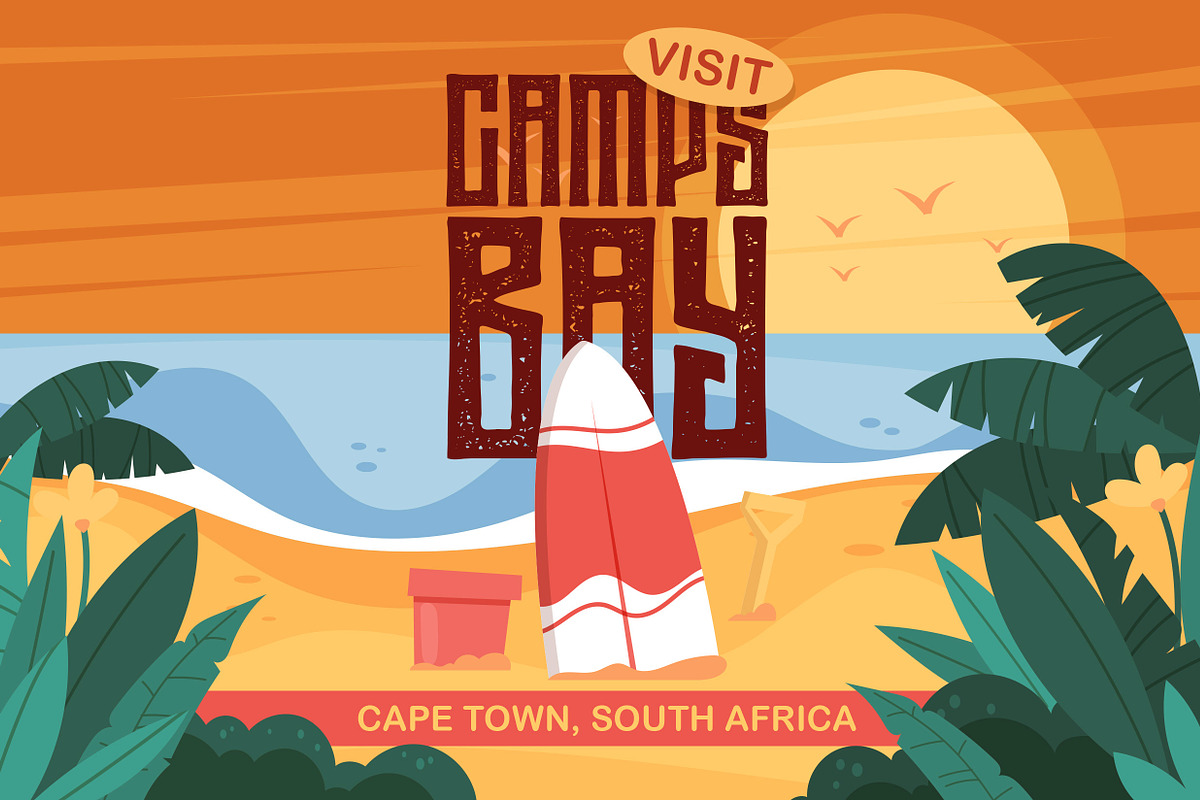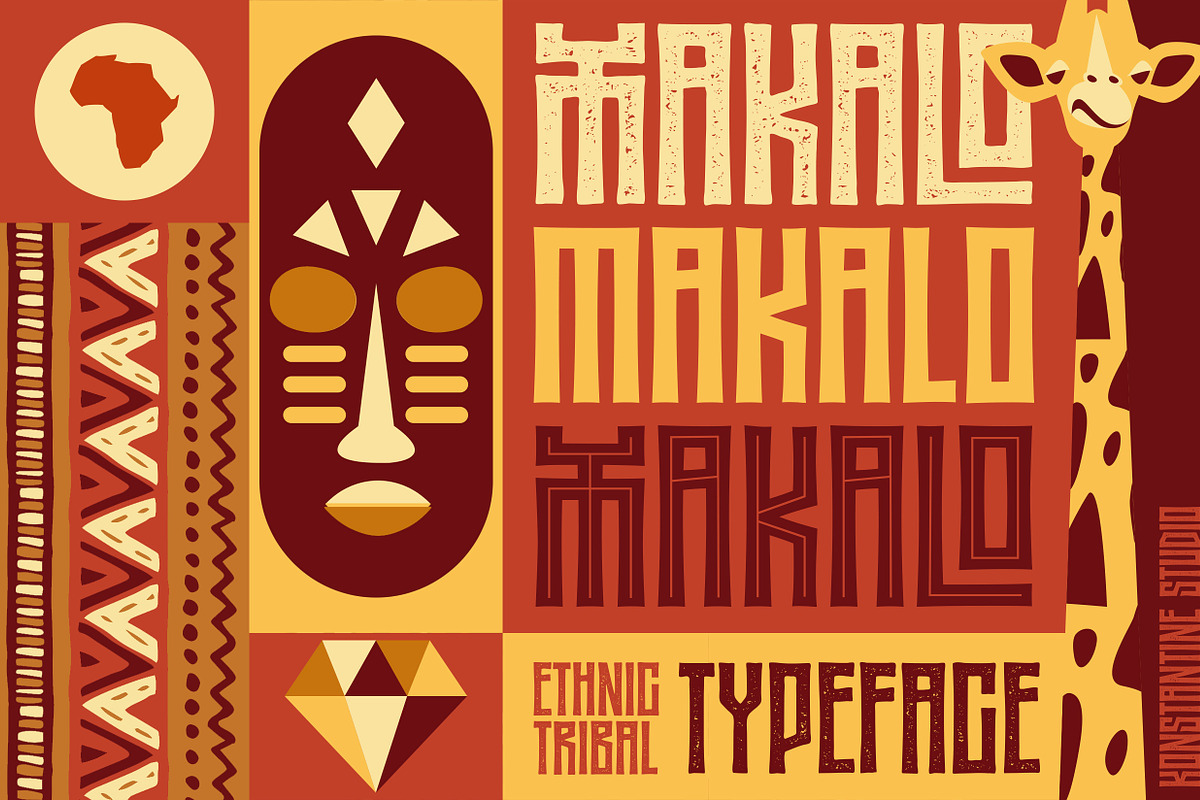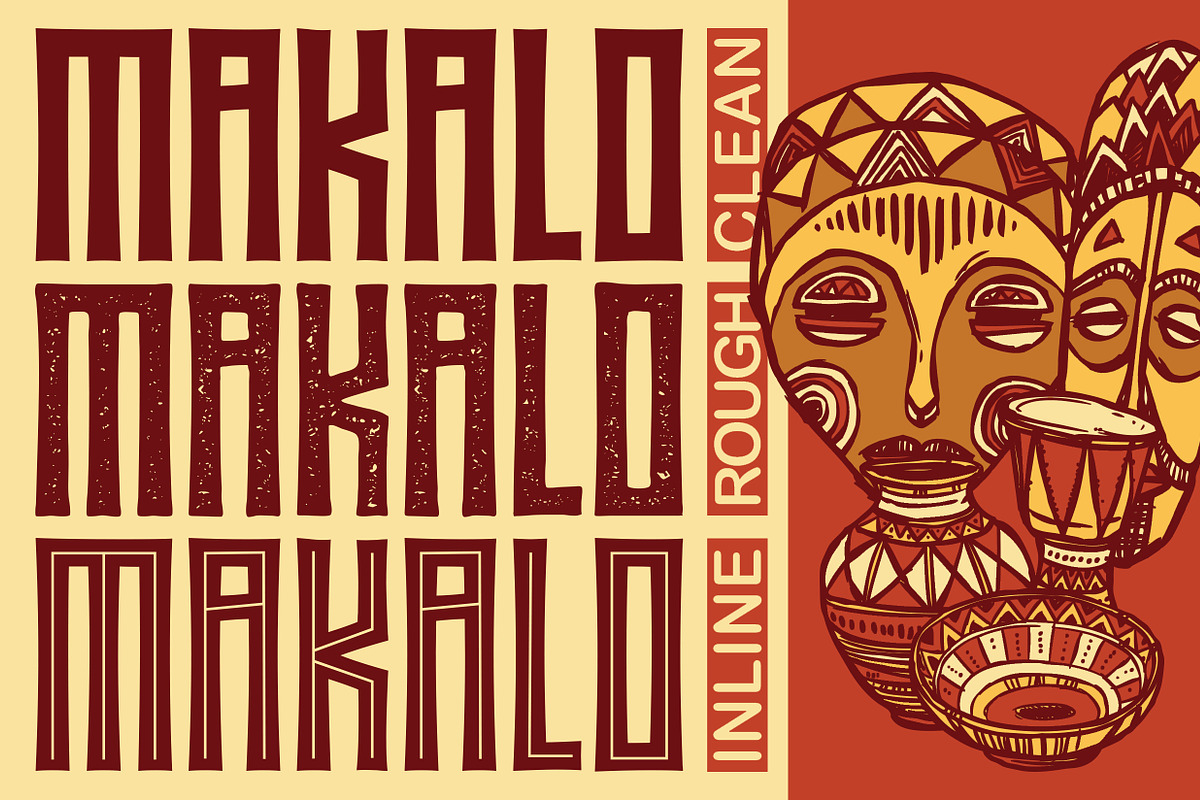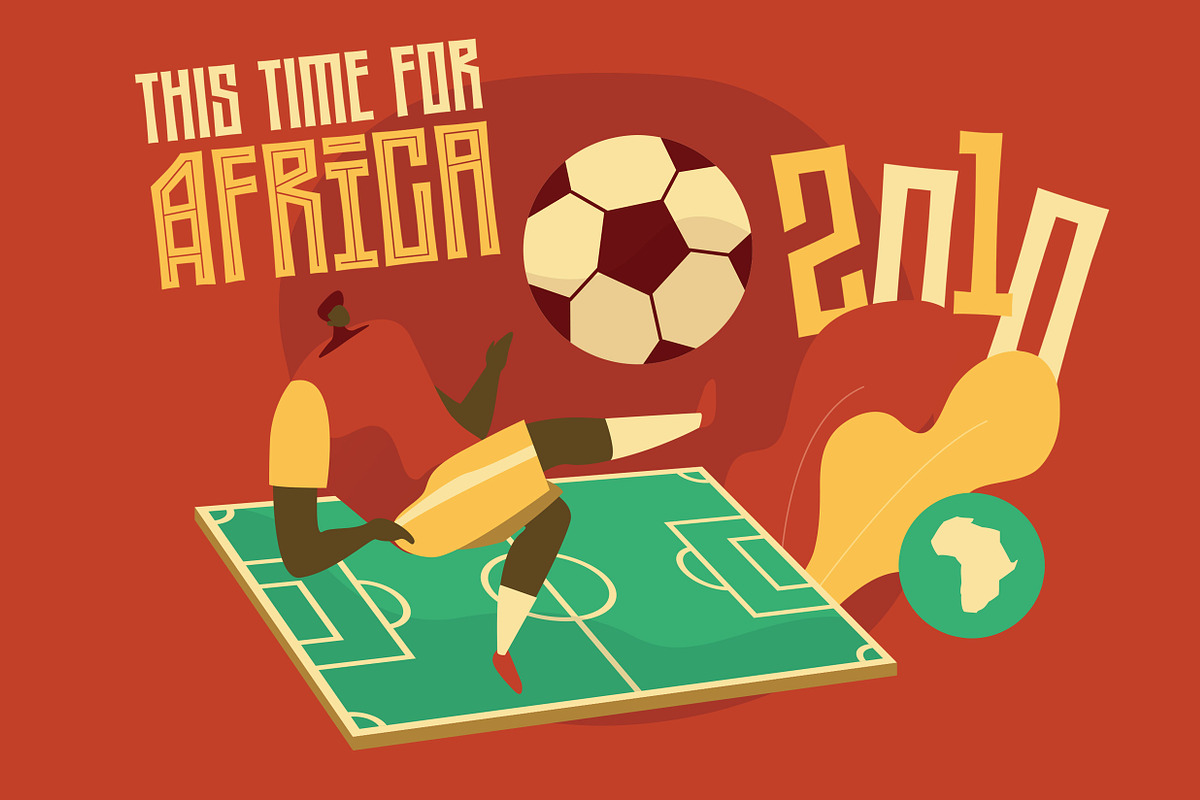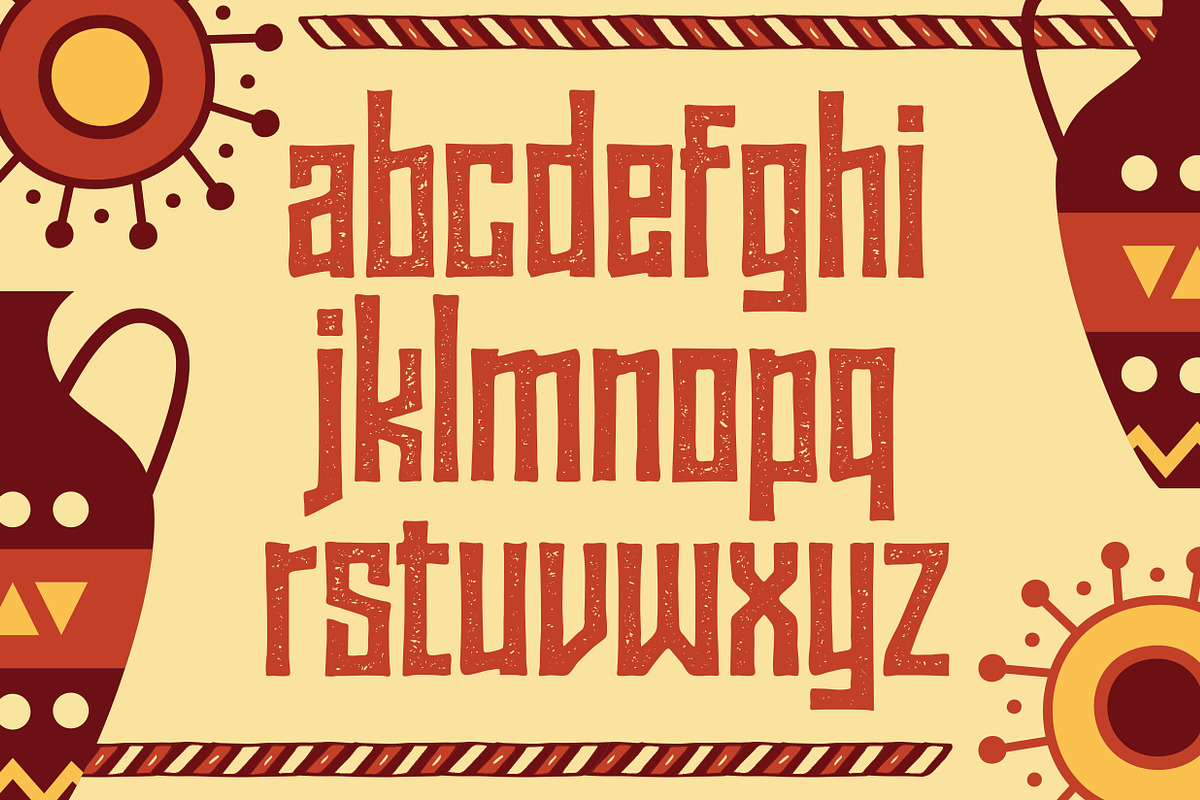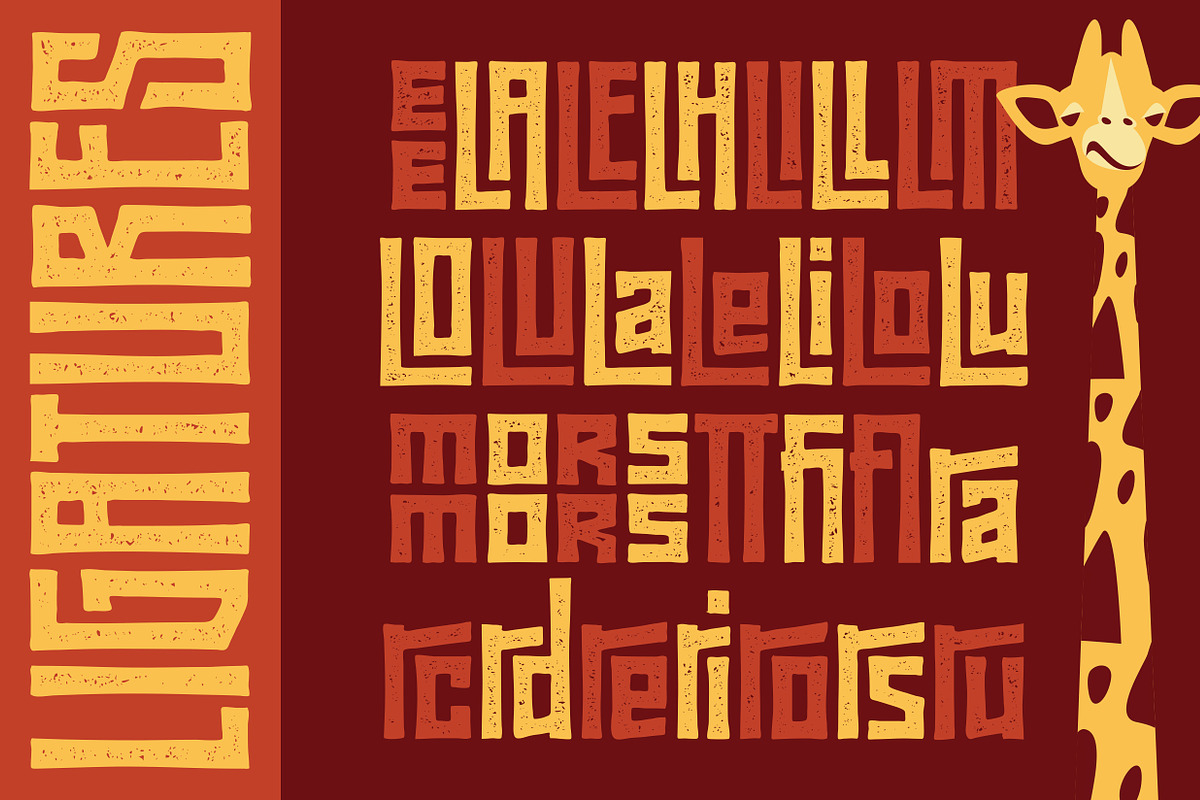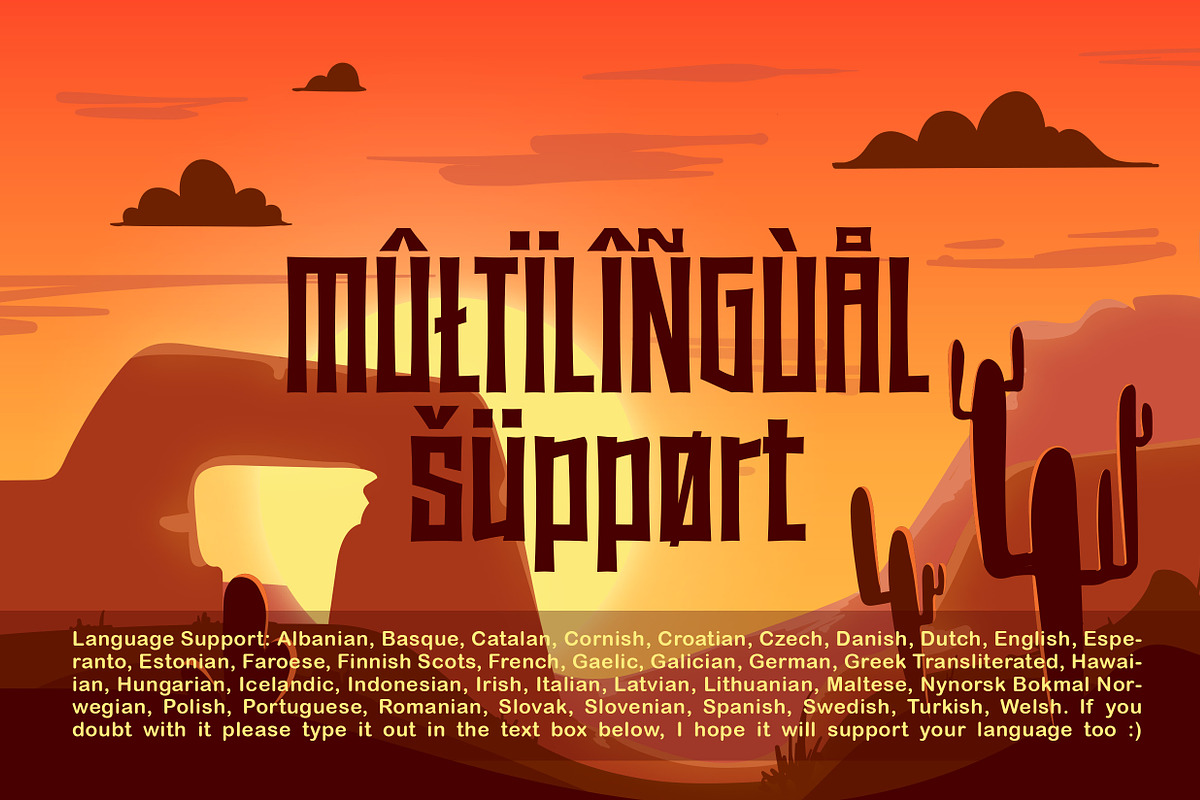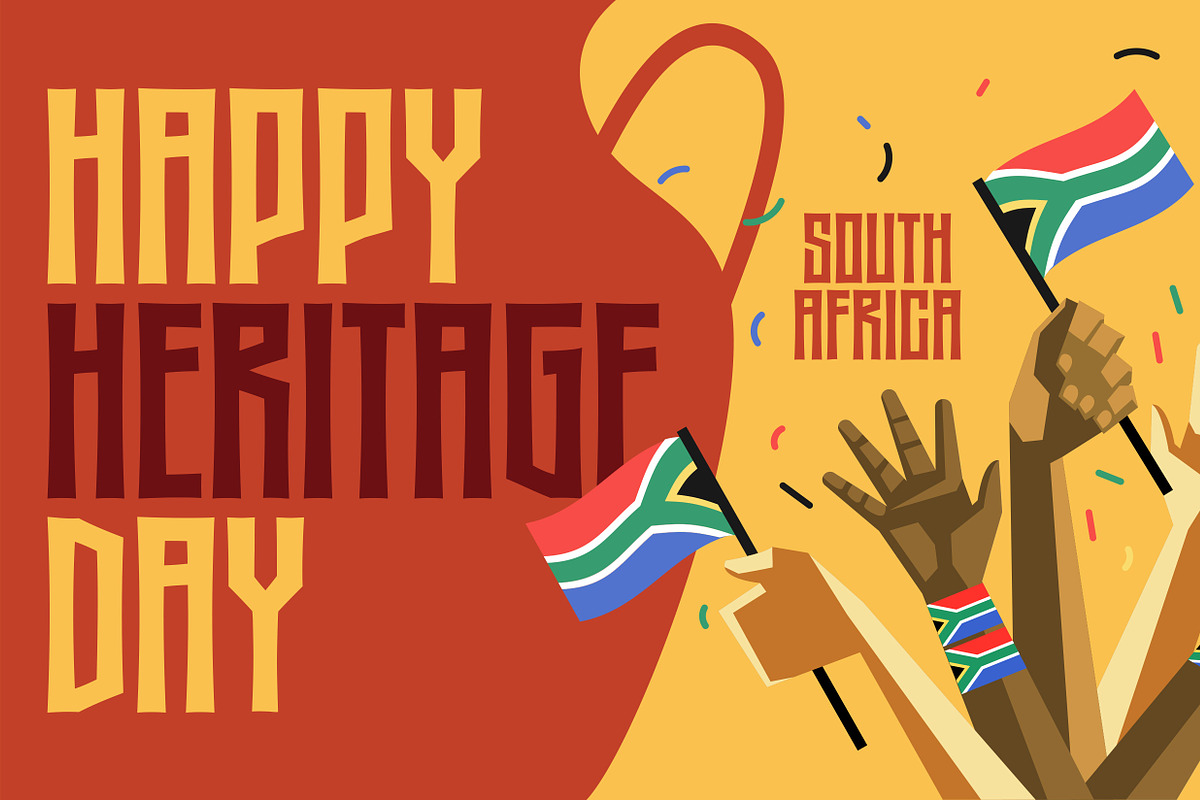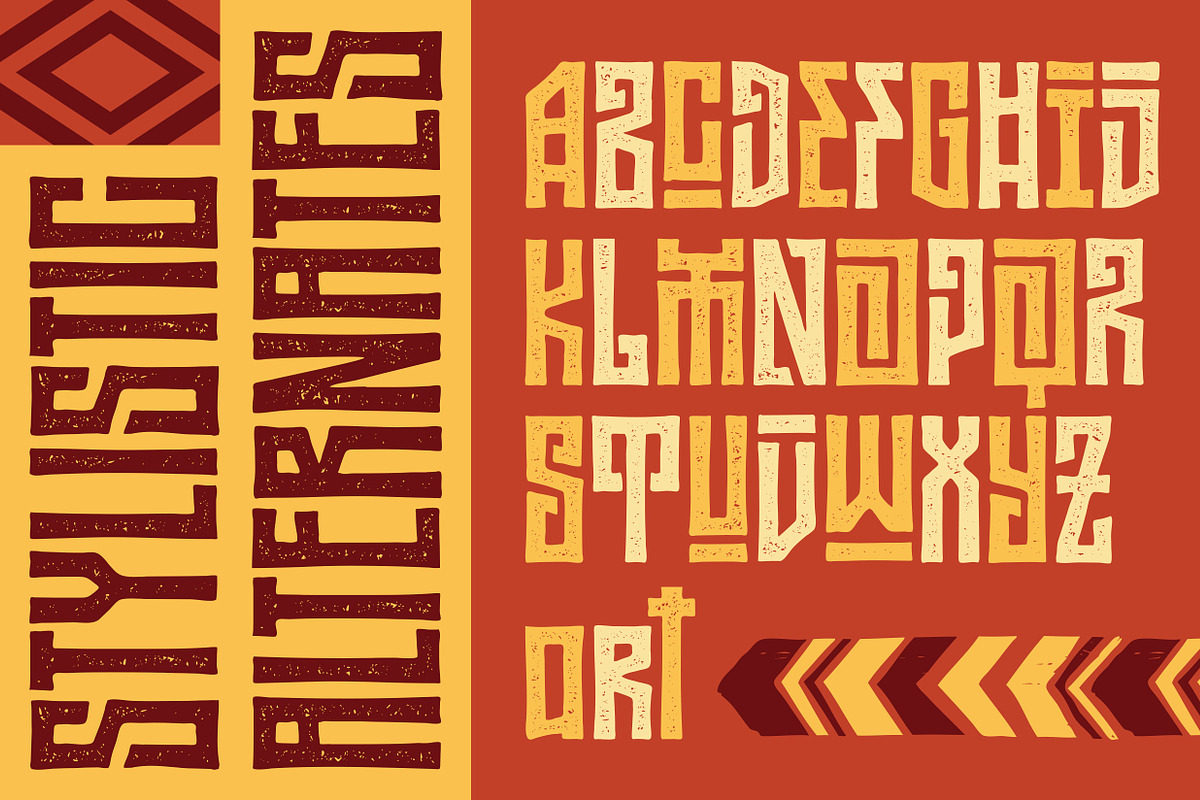
MAKALO - Ethnic Tribal Fonts
Pack up your bags and let's travel to somewhere far away. Dive deep into the ethnical visual vibes together with MAKALO.
Inspired by the traditional tribal and visual ethnic vibes. Perfectly fit for your fun and casual thematic visuals, logo, branding, products, campaigns, events, seasonal promotions, traditional concept, explore the different side of your brand using MAKALO fonts.
Came up with 3 different styles, Regular, Clean, and Inline. And also packed up with Stylistic Alternates and Ligatures to explore the deeper vibes of ethnic and tribal visuals.
Language Support: Danish, Dutch, English, Filipino, Finnish, French, Galician, German, Icelandic, Indonesian, Irish, Italian, Norwegian Bokmål, Norwegian Nynorsk, Portuguese, Romansh, Spanish, Swahili, Swedish, Swiss-German, if you doubt with it please type it out in the text box below, I hope it will support your language too :)